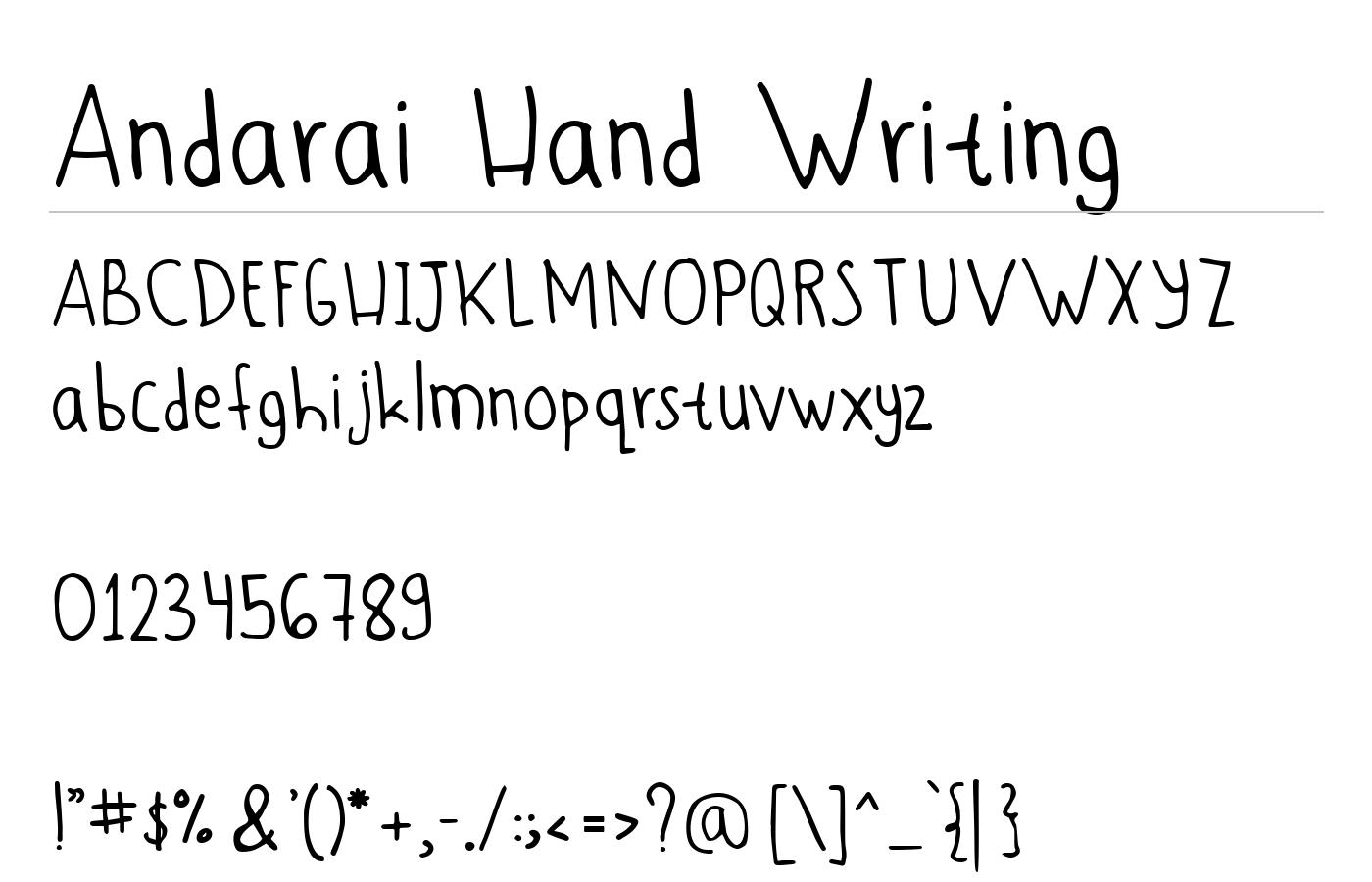
Andari Hand Writing is a playful and casual handwritten font characterized by its tall, slender letterforms and slightly irregular strokes, giving it an authentic, personal touch. Its light weight and open spacing make it easy to read, perfect for informal designs requiring a friendly and approachable feel. This font is ideal for creative projects, children’s materials, invitations, and casual branding that seek a warm, human touch.
Andari Hand Writing Font
About Andari Hand Writing Font